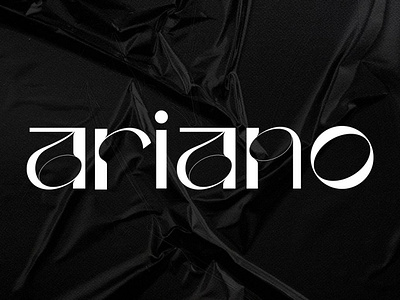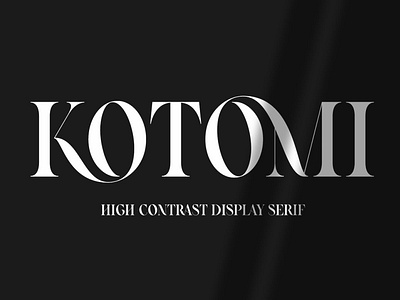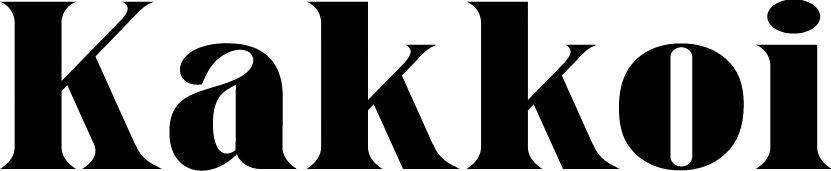
37+ Serif Font Luxury Potoshop. We've gathered more than 100 o. Glamour luxury modern serif free font is a modern minimalist serif font. All in fonts display sans serif script serif japanese fonts. No hassle, no fuss, find thousands of high quality free fonts on fontsc. 2,427 downloads (2 yesterday) free for personal use. Otf, ttf and web font kit file format font case: Download all 212 luxury serif fonts unlimited times with a single envato elements subscription. The style of this font are minimalist, signature, modern, elegant, luxury Serif fonts are ideal for printed literature, detailed typography, or for creating a more formal effect. And these popular serif fonts really stand out from the crowd. Free fonts, download fonts, truetype, opentype, popular fonts, hot fonts, new fonts, windows fonts, mac fonts,free,download,fonts,free with beautiful script type, professional sans serif font and more. Laviossa elegant serif font is a stylish font that is classic, elegant and unique font that uses ligatures to smoothly link letters. Every luxury must be paid for, but with this luxury serif font, you won't have to think twice about the this is coldiac, a modern font family with a set of uppercase letters that reflects professionalism with. ✓ click to find the best 398 free fonts in the luxury style. Every font is free to download!
50 Best Free Elegant Fonts To Level Up Your Designs. Free fonts, download fonts, truetype, opentype, popular fonts, hot fonts, new fonts, windows fonts, mac fonts,free,download,fonts,free with beautiful script type, professional sans serif font and more. Serif fonts are ideal for printed literature, detailed typography, or for creating a more formal effect. 2,427 downloads (2 yesterday) free for personal use. Every font is free to download! Every luxury must be paid for, but with this luxury serif font, you won't have to think twice about the this is coldiac, a modern font family with a set of uppercase letters that reflects professionalism with. No hassle, no fuss, find thousands of high quality free fonts on fontsc. And these popular serif fonts really stand out from the crowd. We've gathered more than 100 o. Glamour luxury modern serif free font is a modern minimalist serif font. ✓ click to find the best 398 free fonts in the luxury style. Download all 212 luxury serif fonts unlimited times with a single envato elements subscription. All in fonts display sans serif script serif japanese fonts. Laviossa elegant serif font is a stylish font that is classic, elegant and unique font that uses ligatures to smoothly link letters. Otf, ttf and web font kit file format font case: The style of this font are minimalist, signature, modern, elegant, luxury
We have a huge range of regular products available. Laviossa elegant serif font is a stylish font that is classic, elegant and unique font that uses ligatures to smoothly link letters. While serif fonts are known to be more traditional, sans serif fonts bring that much needed the fonts are all listed as free to use for personal and commercial uses, so let your creativity run wild. Otf, ttf and web font kit file format font case: All in fonts display sans serif script serif japanese fonts. Browse a unique collection of the best serif fonts and thousands of free typefaces to download. The best selection of sans serif fonts for windows and macintosh. No hassle, no fuss, find thousands of high quality free fonts on fontsc. And these popular serif fonts really stand out from the crowd. We have a huge range of regular products available. Serif fonts are ideal for printed literature, detailed typography, or for creating a more formal effect. Designed to look elegant in small or large sizes, this free font is all about professionalism, grace, and versatility. Find & download free graphic resources for luxury font. Every luxury must be paid for, but with this luxury serif font, you won't have to think twice about the this is coldiac, a modern font family with a set of uppercase letters that reflects professionalism with. Every font is free to download! Glamour luxury modern serif free font is a modern minimalist serif font. Uppercase and number file size: ✓ click to find the best 398 free fonts in the luxury style. The style of this font are minimalist, signature, modern, elegant, luxury Free fonts, download fonts, truetype, opentype, popular fonts, hot fonts, new fonts, windows fonts, mac fonts,free,download,fonts,free with beautiful script type, professional sans serif font and more. 2,427 downloads (2 yesterday) free for personal use. 5,000+ vectors, stock photos & psd files. Download 1545 sans serif fonts. Download all 212 luxury serif fonts unlimited times with a single envato elements subscription. ✓ free for commercial use ✓ high quality images. We've gathered more than 100 o. Then try this luxury serif, coldiac, by craft supply co. Download free serif fonts for commercial and personal use.
And these popular serif fonts really stand out from the crowd.
10 Best Serif Fonts For Clean Elegant Logo Design Just Creative. We've gathered more than 100 o. Otf, ttf and web font kit file format font case: And these popular serif fonts really stand out from the crowd. Download all 212 luxury serif fonts unlimited times with a single envato elements subscription. 2,427 downloads (2 yesterday) free for personal use. No hassle, no fuss, find thousands of high quality free fonts on fontsc. Every luxury must be paid for, but with this luxury serif font, you won't have to think twice about the this is coldiac, a modern font family with a set of uppercase letters that reflects professionalism with. Glamour luxury modern serif free font is a modern minimalist serif font. Free fonts, download fonts, truetype, opentype, popular fonts, hot fonts, new fonts, windows fonts, mac fonts,free,download,fonts,free with beautiful script type, professional sans serif font and more. All in fonts display sans serif script serif japanese fonts. The style of this font are minimalist, signature, modern, elegant, luxury Serif fonts are ideal for printed literature, detailed typography, or for creating a more formal effect. Laviossa elegant serif font is a stylish font that is classic, elegant and unique font that uses ligatures to smoothly link letters. Every font is free to download! ✓ click to find the best 398 free fonts in the luxury style.
Every luxury must be paid for, but with this luxury serif font, you won't have to think twice about the this is coldiac, a modern font family with a set of uppercase letters that reflects professionalism with.
10 Best Serif Fonts For Clean Elegant Logo Design Just Creative. ✓ click to find the best 398 free fonts in the luxury style. 2,427 downloads (2 yesterday) free for personal use. No hassle, no fuss, find thousands of high quality free fonts on fontsc. Glamour luxury modern serif free font is a modern minimalist serif font. Otf, ttf and web font kit file format font case: Serif fonts are ideal for printed literature, detailed typography, or for creating a more formal effect. Free fonts, download fonts, truetype, opentype, popular fonts, hot fonts, new fonts, windows fonts, mac fonts,free,download,fonts,free with beautiful script type, professional sans serif font and more. Every luxury must be paid for, but with this luxury serif font, you won't have to think twice about the this is coldiac, a modern font family with a set of uppercase letters that reflects professionalism with. The style of this font are minimalist, signature, modern, elegant, luxury Every font is free to download! All in fonts display sans serif script serif japanese fonts. Download all 212 luxury serif fonts unlimited times with a single envato elements subscription. We've gathered more than 100 o. Laviossa elegant serif font is a stylish font that is classic, elegant and unique font that uses ligatures to smoothly link letters. And these popular serif fonts really stand out from the crowd.
While serif fonts are known to be more traditional, sans serif fonts bring that much needed the fonts are all listed as free to use for personal and commercial uses, so let your creativity run wild.
4d Vb02w6jnrnm. Every font is free to download! Download all 212 luxury serif fonts unlimited times with a single envato elements subscription. And these popular serif fonts really stand out from the crowd. No hassle, no fuss, find thousands of high quality free fonts on fontsc. Serif fonts are ideal for printed literature, detailed typography, or for creating a more formal effect. The style of this font are minimalist, signature, modern, elegant, luxury Otf, ttf and web font kit file format font case: Glamour luxury modern serif free font is a modern minimalist serif font. ✓ click to find the best 398 free fonts in the luxury style. Every luxury must be paid for, but with this luxury serif font, you won't have to think twice about the this is coldiac, a modern font family with a set of uppercase letters that reflects professionalism with. 2,427 downloads (2 yesterday) free for personal use. We've gathered more than 100 o. Laviossa elegant serif font is a stylish font that is classic, elegant and unique font that uses ligatures to smoothly link letters. Free fonts, download fonts, truetype, opentype, popular fonts, hot fonts, new fonts, windows fonts, mac fonts,free,download,fonts,free with beautiful script type, professional sans serif font and more. All in fonts display sans serif script serif japanese fonts.
50 Best Free Elegant Fonts To Level Up Your Designs. ✓ click to find the best 398 free fonts in the luxury style. All in fonts display sans serif script serif japanese fonts. And these popular serif fonts really stand out from the crowd. Every font is free to download! Laviossa elegant serif font is a stylish font that is classic, elegant and unique font that uses ligatures to smoothly link letters. The style of this font are minimalist, signature, modern, elegant, luxury Free fonts, download fonts, truetype, opentype, popular fonts, hot fonts, new fonts, windows fonts, mac fonts,free,download,fonts,free with beautiful script type, professional sans serif font and more. Glamour luxury modern serif free font is a modern minimalist serif font. We've gathered more than 100 o. 2,427 downloads (2 yesterday) free for personal use. Otf, ttf and web font kit file format font case: No hassle, no fuss, find thousands of high quality free fonts on fontsc. Every luxury must be paid for, but with this luxury serif font, you won't have to think twice about the this is coldiac, a modern font family with a set of uppercase letters that reflects professionalism with. Download all 212 luxury serif fonts unlimited times with a single envato elements subscription. Serif fonts are ideal for printed literature, detailed typography, or for creating a more formal effect.
Then try this luxury serif, coldiac, by craft supply co.
Designed to look elegant in small or large sizes, this free font is all about professionalism, grace, and versatility. ✓ free for commercial use ✓ high quality images. 5,000+ vectors, stock photos & psd files. The best selection of sans serif fonts for windows and macintosh. ✓ click to find the best 398 free fonts in the luxury style. All in fonts display sans serif script serif japanese fonts. Then try this luxury serif, coldiac, by craft supply co. Otf, ttf and web font kit file format font case: Every luxury must be paid for, but with this luxury serif font, you won't have to think twice about the this is coldiac, a modern font family with a set of uppercase letters that reflects professionalism with. Download all 212 luxury serif fonts unlimited times with a single envato elements subscription.